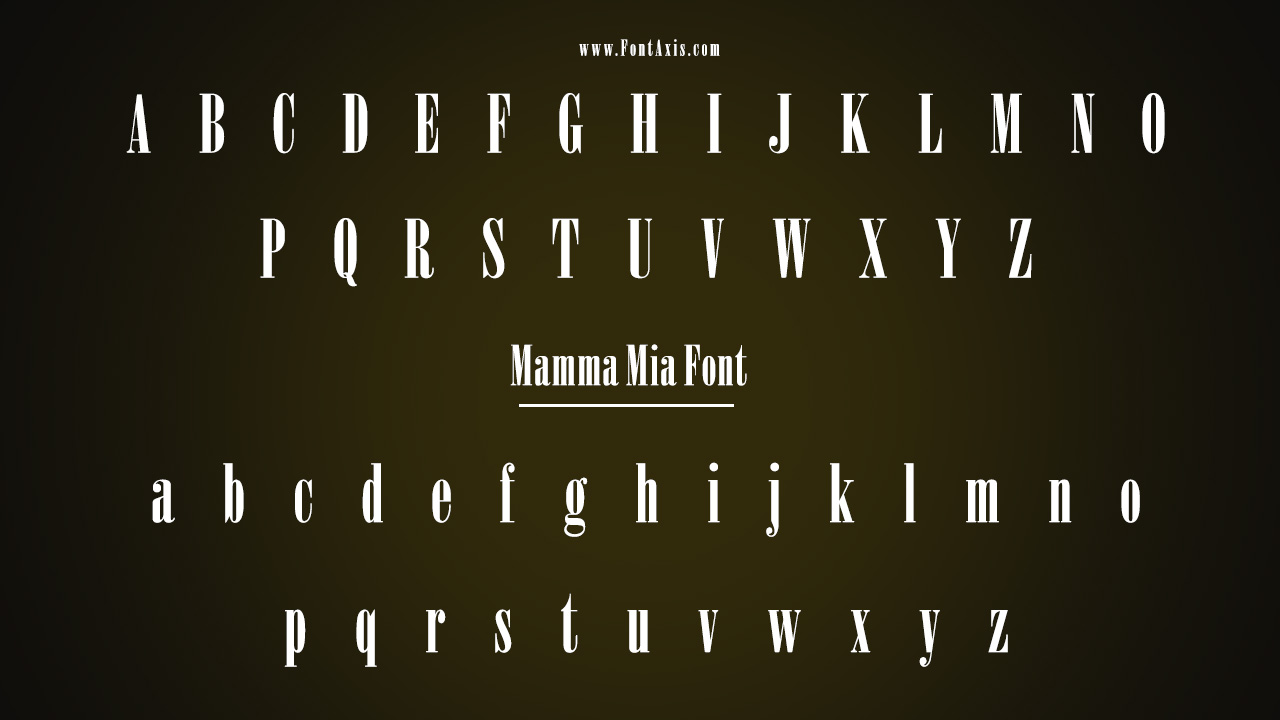
The Mamma Mia Font is a beautiful, refined serif typeface that has become a hallmark of elegance and style. Its popularity skyrocketed due to its association with the 2008 film Mamma Mia!, starring Meryl Streep.
Based on the Bodoni Poster Compressed font, this typeface stands out with its bold, yet refined look, making it perfect for any design requiring sophistication and flair. Whether you’re designing for print, digital media, or branding, the Mamma Mia Font’s timeless appeal will elevate your work.
What Is The Mamma Mia Font?
The Mamma Mia Font is a serif/display typeface, meaning it is best suited for attention-grabbing headlines, titles, and posters. It features the traditional elegance of the Bodoni family, initially designed by Giambattista Bodoni, an 18th-century typographer known for his modern take on serif fonts. Mamma Mia Font takes inspiration from Bodoni Poster Compressed, a bold, high-contrast version designed for posters and other large-scale applications.
Mamma Mia Font Characteristics
- Type Style: Serif/Display Font
- Designer: Based on Bodoni Poster Compressed, designed by Giambattista Bodoni
- Font Family: Six unique styles
- Mamma Mia Medium
- Mamma Mia Medium Italic
- Mamma Mia Bold
- Mamma Mia Semi Bold
- Mamma Mia Heavy
- Mamma Mia Heavy Bold
Where To Use Mamma Mia Font
Due to its sophisticated design and high contrast, the Mamma Mia Font is perfect for various applications, especially when you want to make a statement or create a memorable impression. Below are some of the most popular uses:
- Film and event posters: The font’s striking presence makes it a go-to choice for movie and event posters, where large text must be legible and eye-catching.
- Book Covers: Mamma Mia Font adds a sense of refinement to book titles and headers, making it ideal for fiction or non-fiction works with a touch of class.
- Branding and Logos: Perfect for luxury brands or creative enterprises that want to convey elegance and modernity.
- Banners and Advertising: Its boldness ensures visibility in outdoor and digital advertising spaces.
- Greeting Cards: Adds a sophisticated flair to personalized greeting cards or invitations, especially for weddings, anniversaries, or upscale events.
- Watermarks: Ideal for personal projects or professional branding materials, providing a classy finish.
The Mamma Mia Font is a timeless serif typeface that embodies elegance and charm. Based on Bodoni Poster Compressed, this typeface offers versatility and is widely used in design fields like branding, publishing, and event marketing. With its stylish look and wide range of applications, the Mamma Mia Font is a go-to choice for designers worldwide.
2.Who Created The Mamma Mia Font?
The Mamma Mia Font is based on the Bodoni Poster Compressed typeface, originally designed by the legendary Giambattista Bodoni, an Italian typographer. Bodoni’s design was revolutionary in its contrast between thick and thin strokes.
The modern version of the font used for the Mamma Mia branding has been modified and adapted to suit contemporary design needs while retaining the classic elegance of Bodoni’s original work.
3.What Are The Best Uses For Mamma Mia Font?
The Mamma Mia Font is perfect for design projects that require a bold and elegant aesthetic. It is particularly well-suited for movie posters, where its striking presence can draw attention, especially for titles or key phrases.
It is also great for logos, particularly for luxury brands or creative ventures that want to convey sophistication. The font works beautifully on book covers, banners, and greeting cards, adding a class touch to formal and celebratory designs.